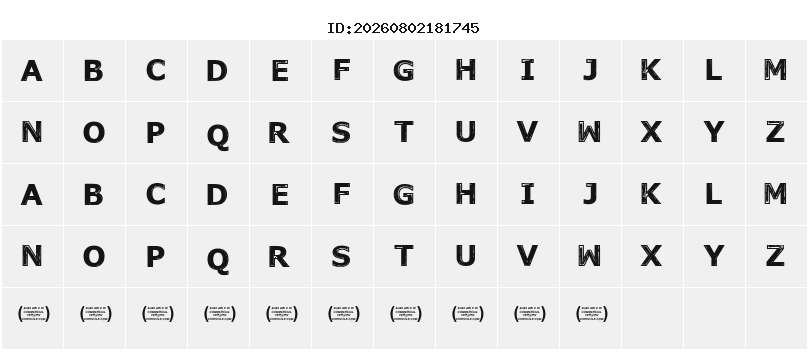
November Mornings Preview
• Font Name: November Mornings
• Designer: Chris Vile
• Manufacturer: Font Monger
• Description: November Mornings Regular is a font by Font Monger, designed by Chris Vile in 2014.
About November Mornings.ttf
November Mornings.ttf is a modern, elegant sans-serif font designed for ultimate readability and visual harmony. Perfect for branding, headlines, web design, and print materials.